There are many different types of fonts, and each has its own purpose. Some fonts are designed to be easy to read, while others are meant to be more decorative. Pixelated style fonts fall somewhere in between these two extremes.
Pixelated style fonts are a type of font that is designed to look like it is made up of pixels. This can give a digital or computerized look to your text.
My favorite thing about Pixel Fonts is that they are super easy to read. I think they look really cool, too.
I like that they are easy to read because I can see the words clearly. Sometimes when I am using other fonts, I have to squint to see what the words say. With Pixel Fonts, I don’t have to squint at all.
I also think that Pixel Fonts look really cool. I like how the letters are all squares. It makes them look different than other fonts.
Pixel Fonts are also great for creating logos. I have seen a lot of logos that are made with Pixel Fonts and they look really professional. These fonts also give your design a 90s retro pixelated look that you can see in old video games.
Overall, I think Pixel Fonts are great. They are easy to read, look cool, and can be used for a variety of purposes, including web design, graphic design, and even video games.
Best Pixelated Style Fonts Download In 2023
- March Wotto – Retro Pixel Typeface
- Bitbybit – Techy Pixelated Font
- Broken Console – Geometric Pixel Font
- Zuck Acho – Bold Pixelated Font
- Brick – Pixelated Sans Serif Font
- Pixel Bit – Unique Futuristic Pixelated Font
- Pixel Craft – Quirky Display Font
- Micro – Pixelate Modern Font
- Pixel Kart – Retro Pixel Font Style
- Ugly Byte – Unique Display Pixel Font
- TickerBit – Retro Pixel Font
March Wotto – Retro Pixel Typeface
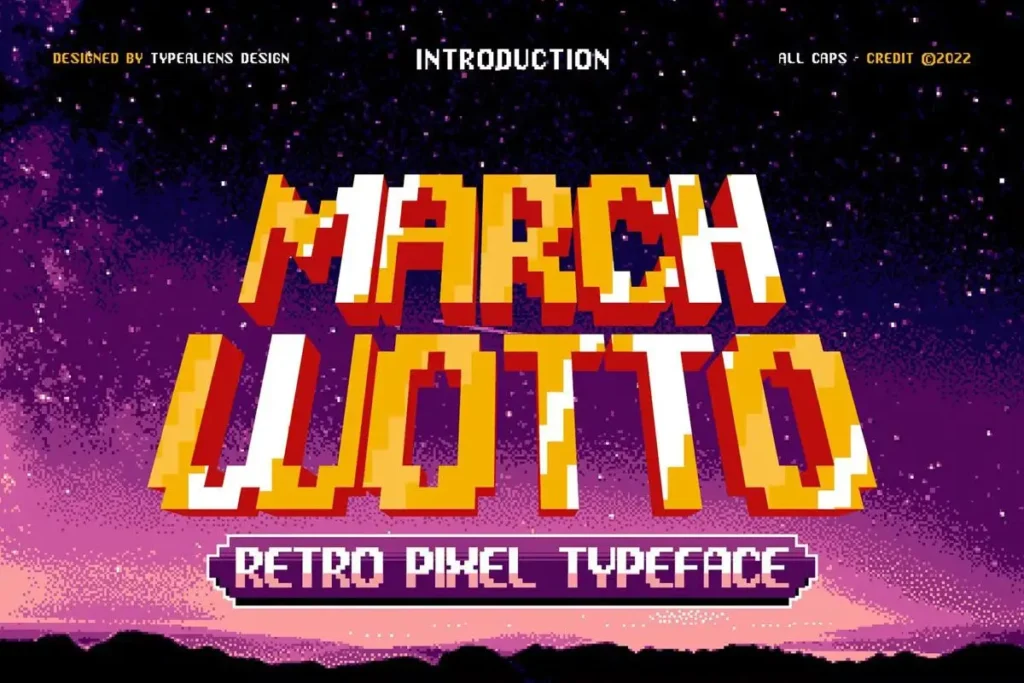
As a typical retro pixel font for classic games, MARCH WOTTO is a font that is designed primarily as a sans serif font but is modified by blending with squares or pixels to create an elegant display font.
Additionally, this font can also be used as a headline on a magazine or tabloid that discusses games in addition to being used as a font for enhancing classic game designs. In addition to this, it can also be used as a title for a film.
Bitbybit – Techy Pixelated Font
A retro pixel typeface that is available in Regular and Bold styles, Bitbybit is a sans serif sans pixel typeface with a retro look. It is inspired by retro gaming culture, the J-RPG retro games, the side-scrolling Metroidvania games, and all the retro consoles that live in the 16bit to 32bit pixel style of retro gaming.
Broken Console – Geometric Pixel Font
The Broken Console character family is inspired by the old-school video game console that displayed pixel art when you viewed it in game mode. This Broken Console font is available in three different styles: Regular, Bold, and Shadow.
Zuck Acho – Bold Pixelated Font
Brick – Pixelated Sans Serif Font
Bricksans is a sans-serif font that is pixelated. It’s a pixel font with open-type features. It made it with low caps addition. It is a bold, rounded font that supports multiple languages and is bold and round.
Pixel Bit – Unique Futuristic Pixelated Font
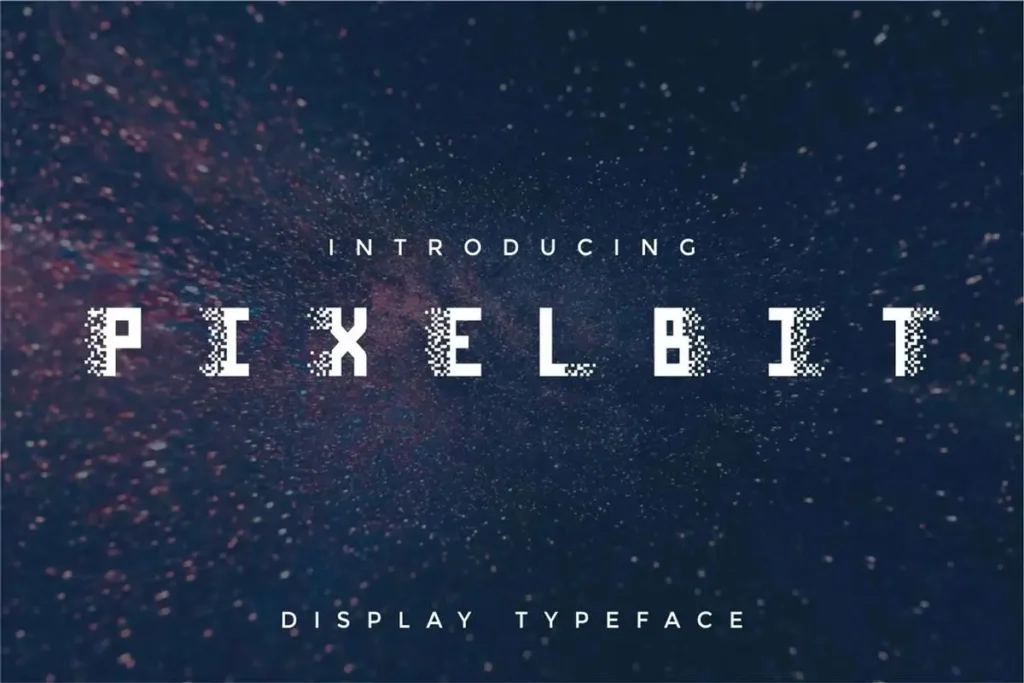
Pixel Bit is a modern, unique, and futuristic display typeface that has a futuristic appearance. I find Pixel Bits to be an excellent choice for a variety of display purposes, including logos, T-shirts, apparel, quotes, handwritten quotes, product packaging, title headers, posters, merchandise, social media, labels, branding, greeting cards, and social media marketing.
Pixel Craft – Quirky Display Font
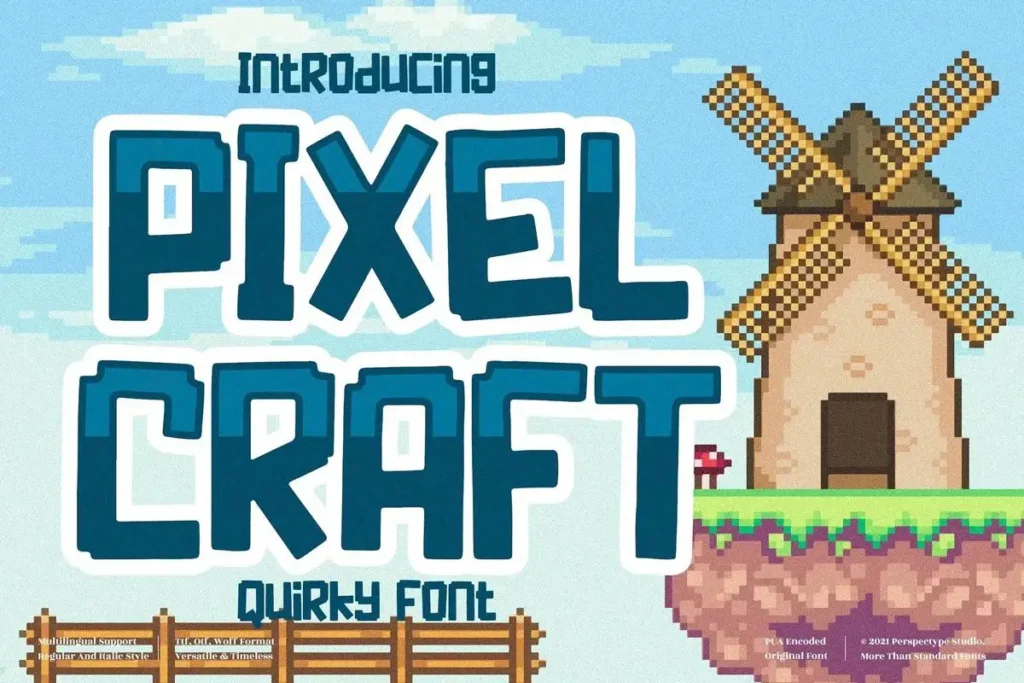
This font is suitable to complement your creative products, whether they are digital or printed. It is suitable to be used on posters, social media posts, branding materials, personal projects, and any other creative endeavor.
Micro – Pixelate Modern Font
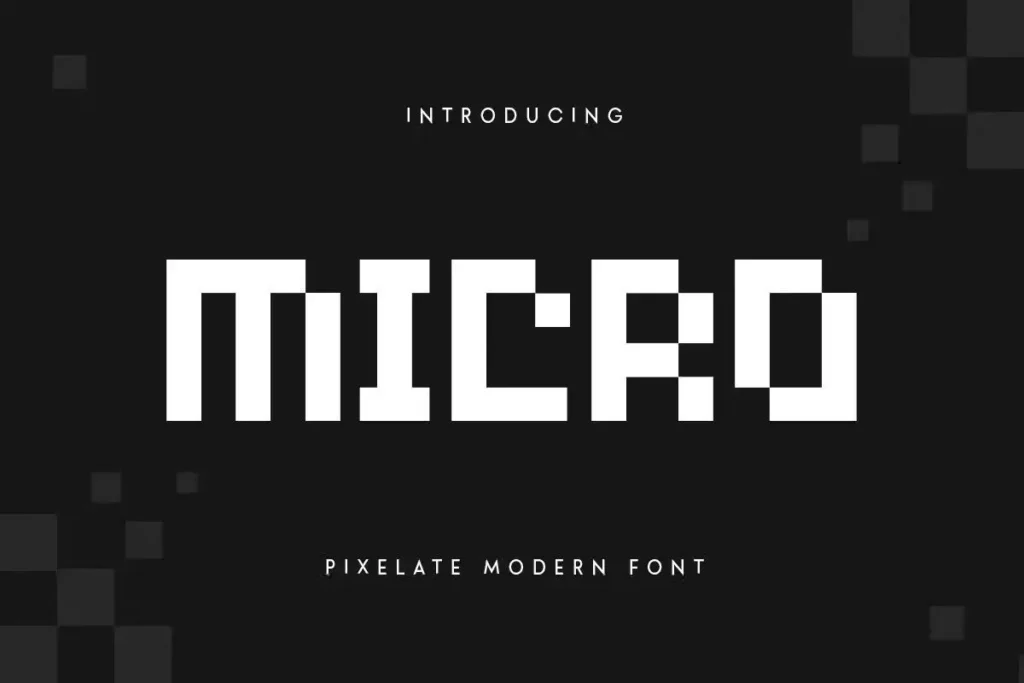
It is an NFT, pixel style, game, or poster design font prepared especially for you to use for your NFT, pixel style, game, or poster design needs. There is nothing more perfect than adding your style and headline overview to it. I would like to mention that Micro font is specially crafted for old-style designs, NFT, and unique feels, so please enjoy creating any project that will convey your main idea in the best way.
Pixel Kart – Retro Pixel Font Style
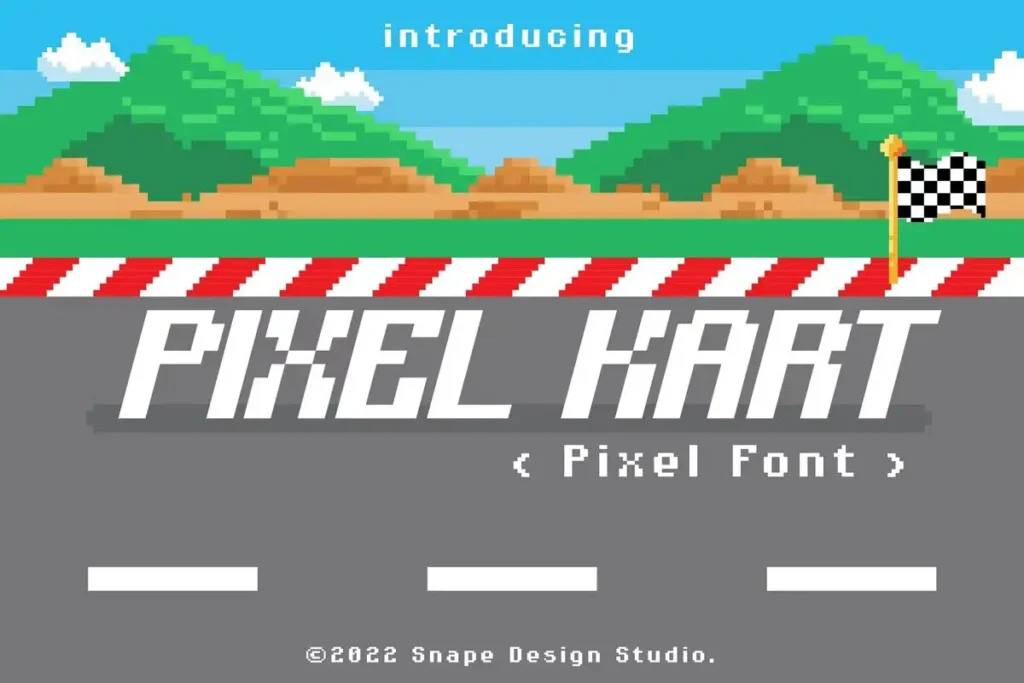
It is a retro pixel font that is perfect for retro game design themes that use pixel fonts. In addition to this, this design can be used for movies, documentaries, films, posters, games, book covers, headlines, titles, and many other projects as well. The next time you come up with a creative idea, be sure to try this font out and see how it will stand out from the crowd!
Ugly Byte – Unique Display Pixel Font
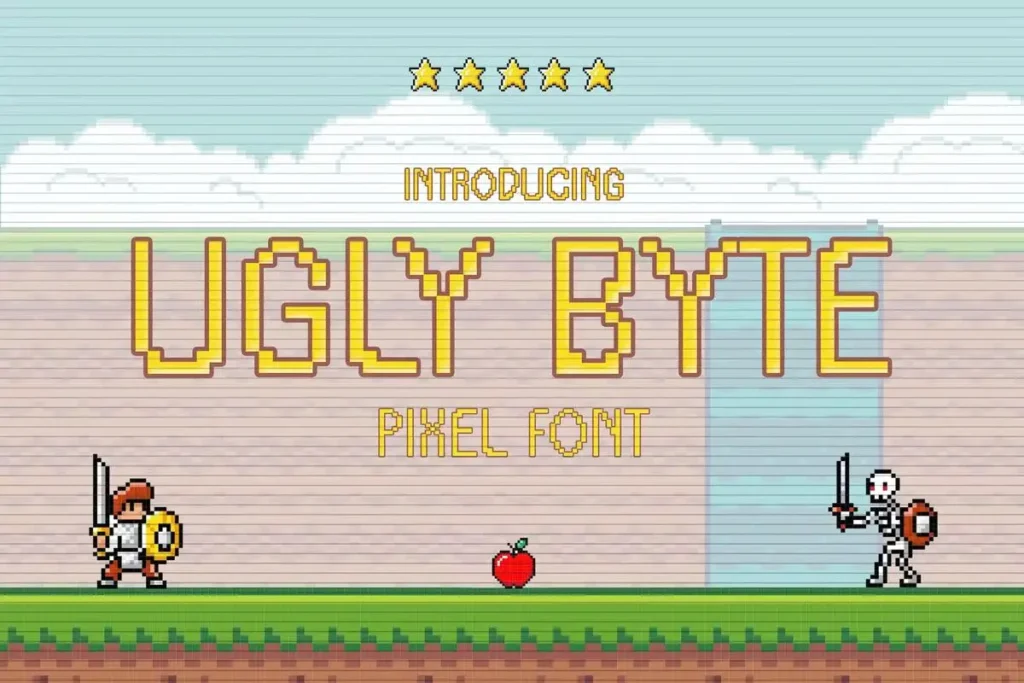
The ugly byte font is a unique pixel display font that offers a variety of features. This font is a great font that can be used for a wide range of projects, including mobile apps, games, retro design projects, and much more.
TickerBit – Retro Pixel Font
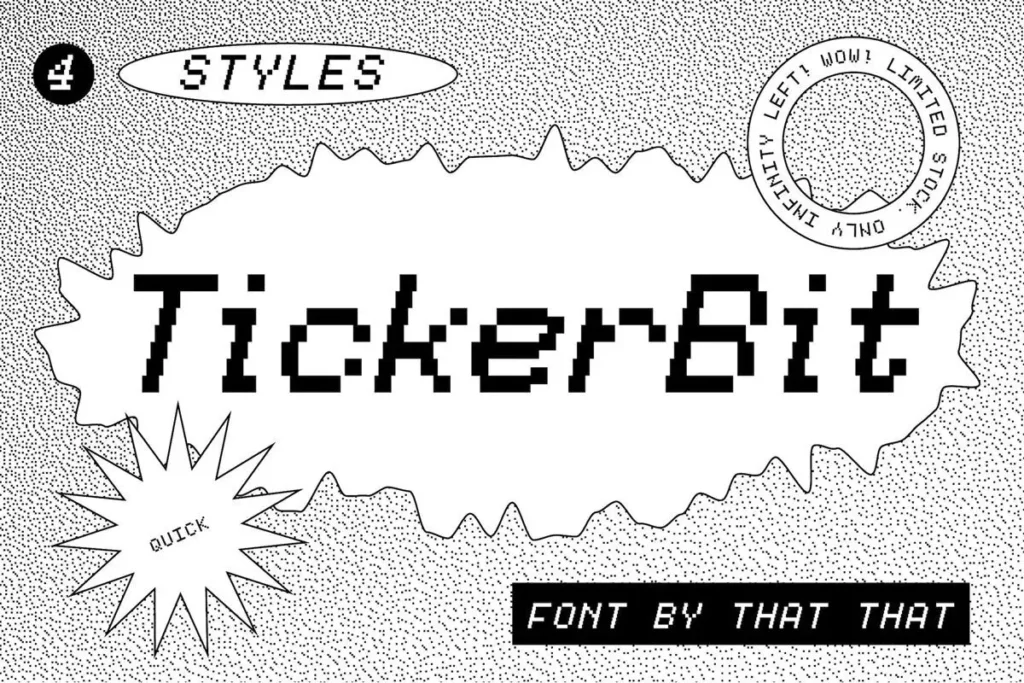
A modern pixel font, Ticikerbit is available in four different styles, allowing you to create your own custom look. If you have a design that requires a retro or contemporary look, then this font is for you.